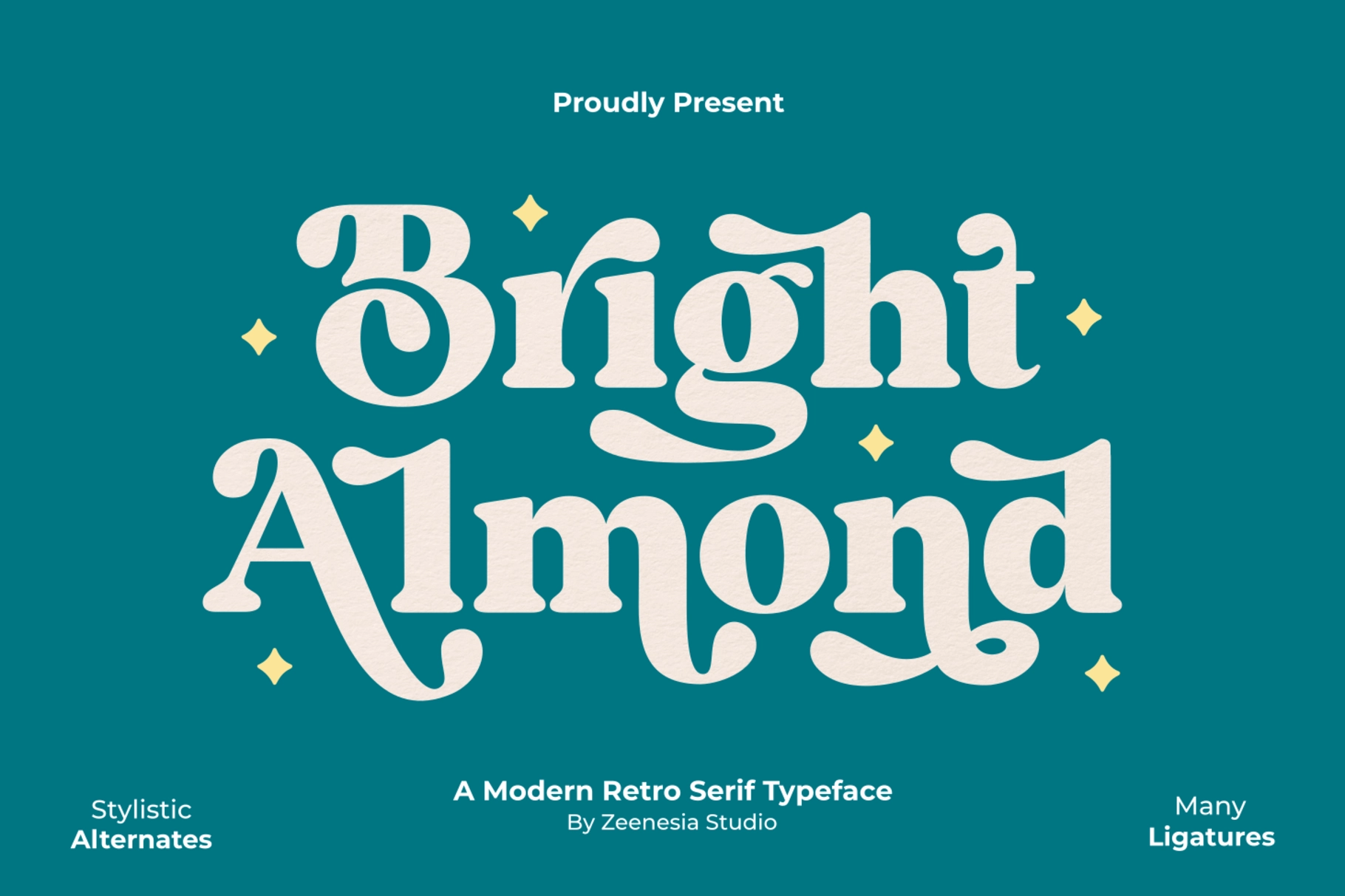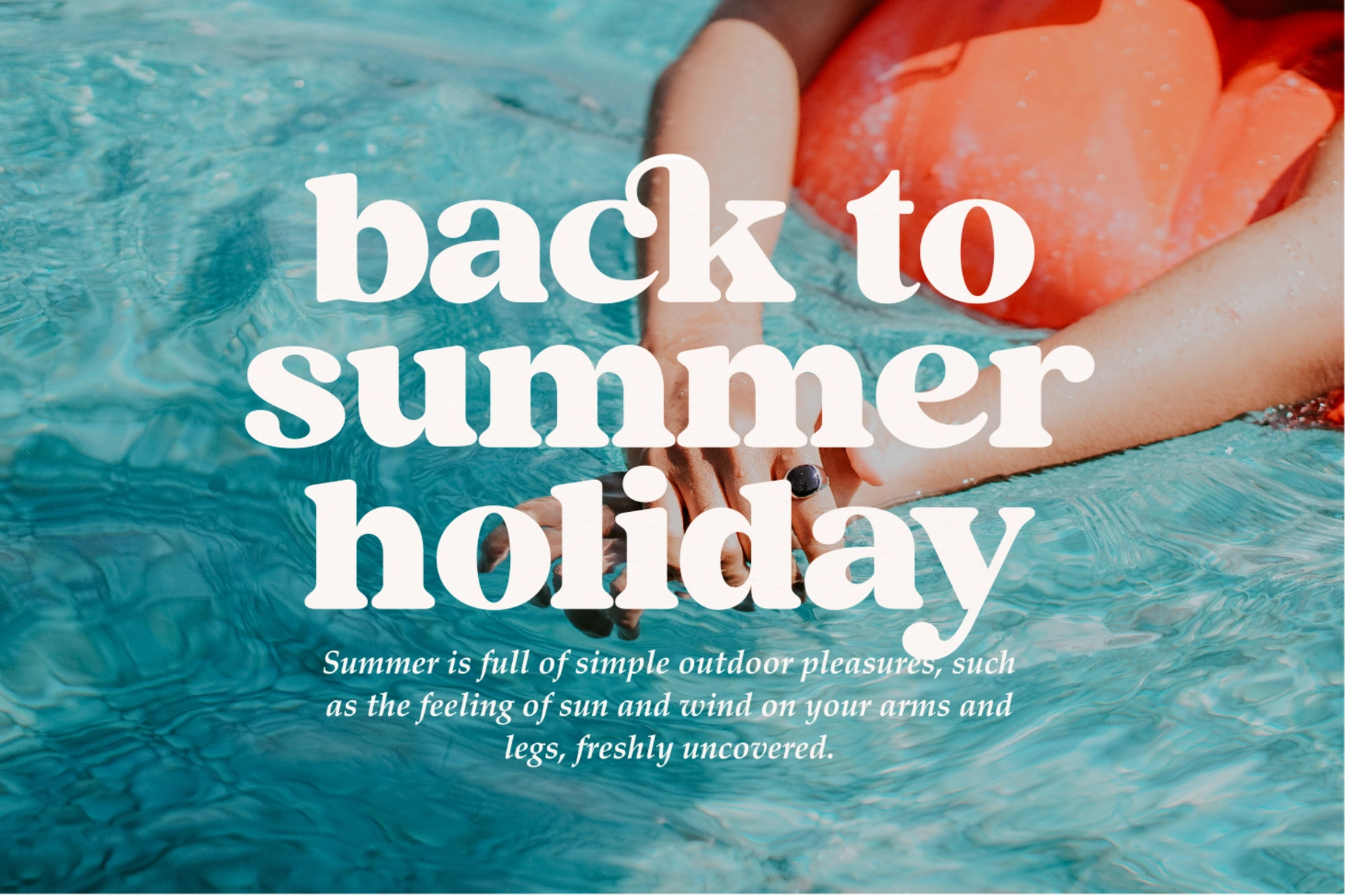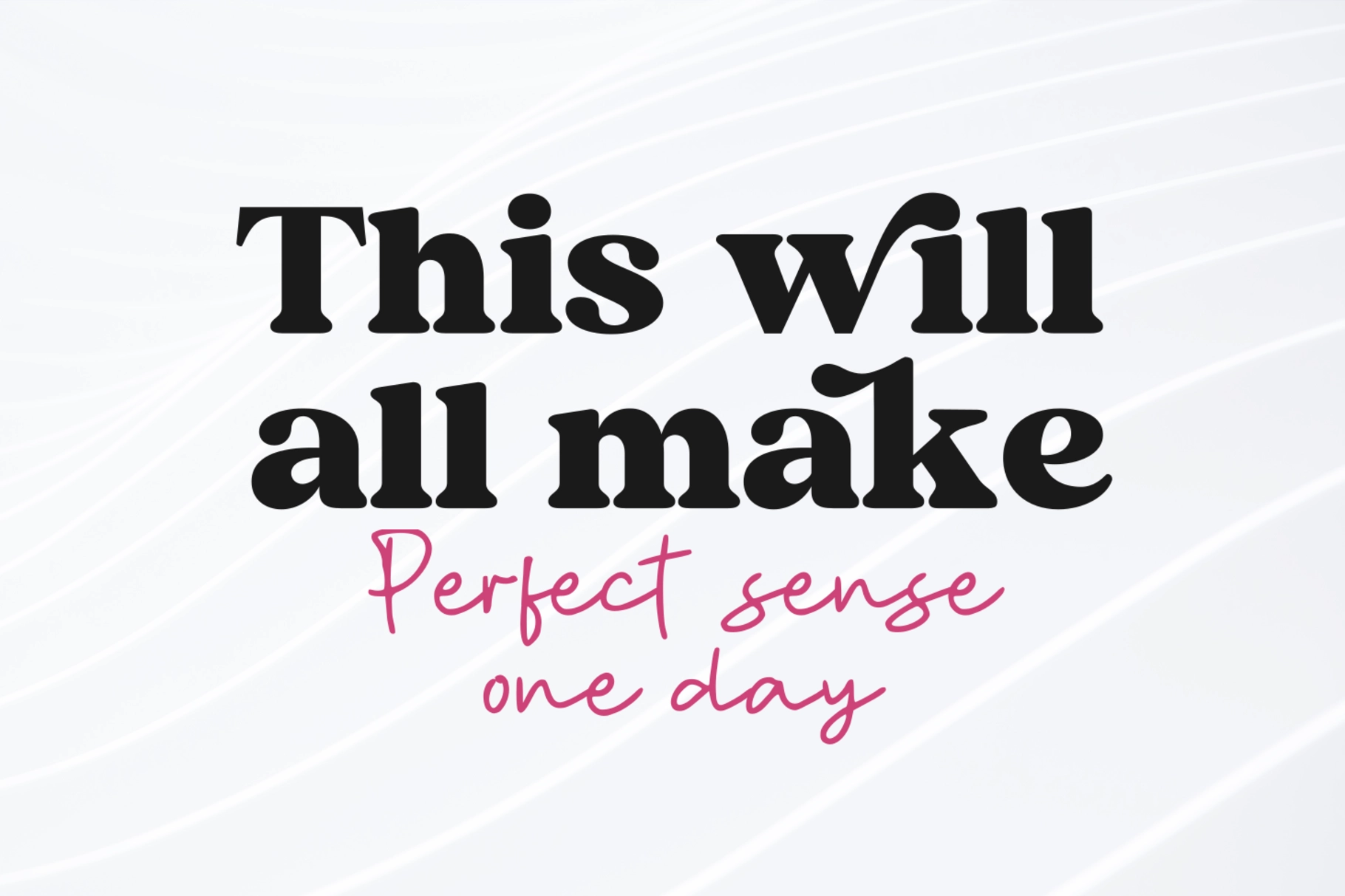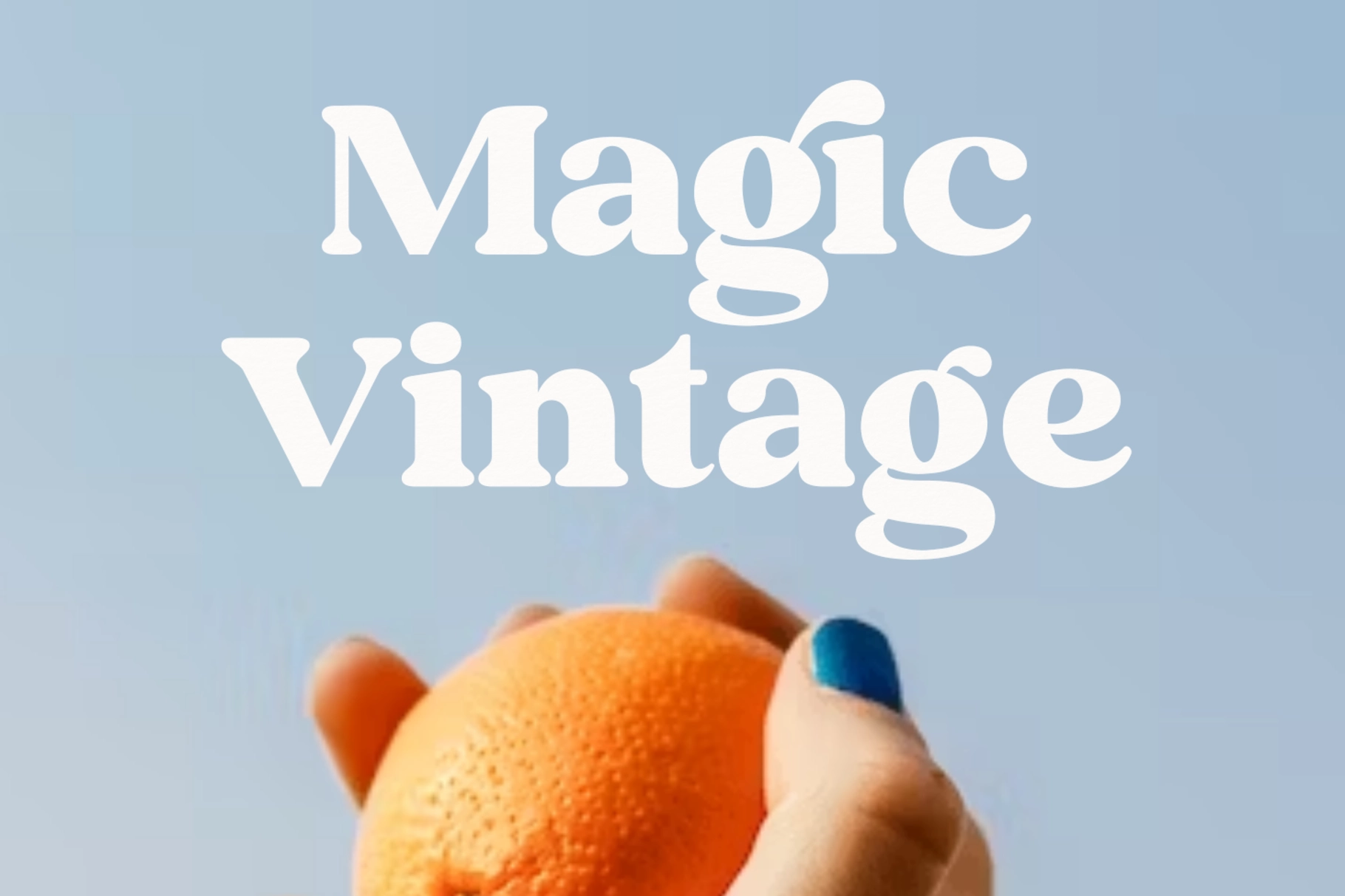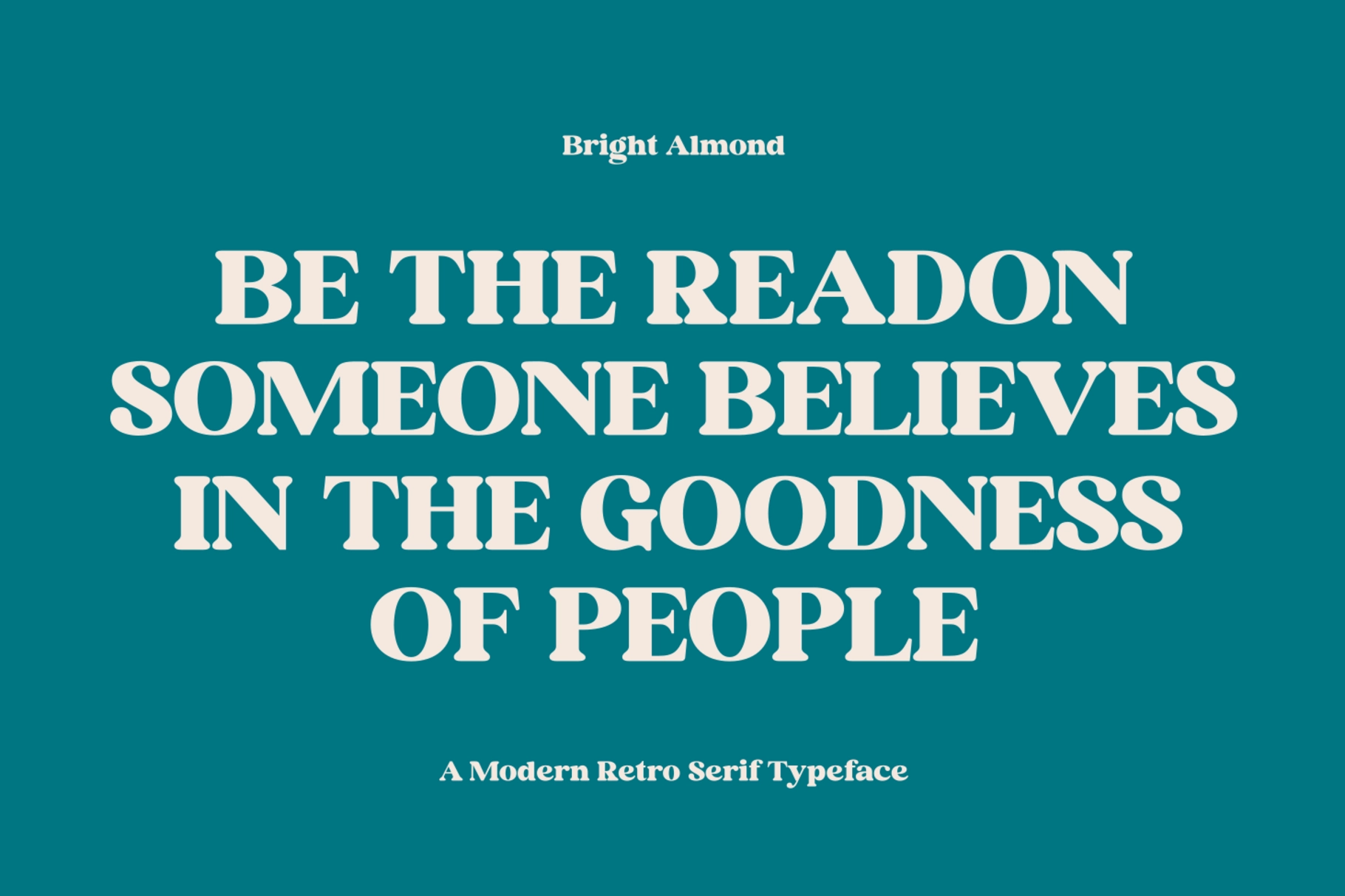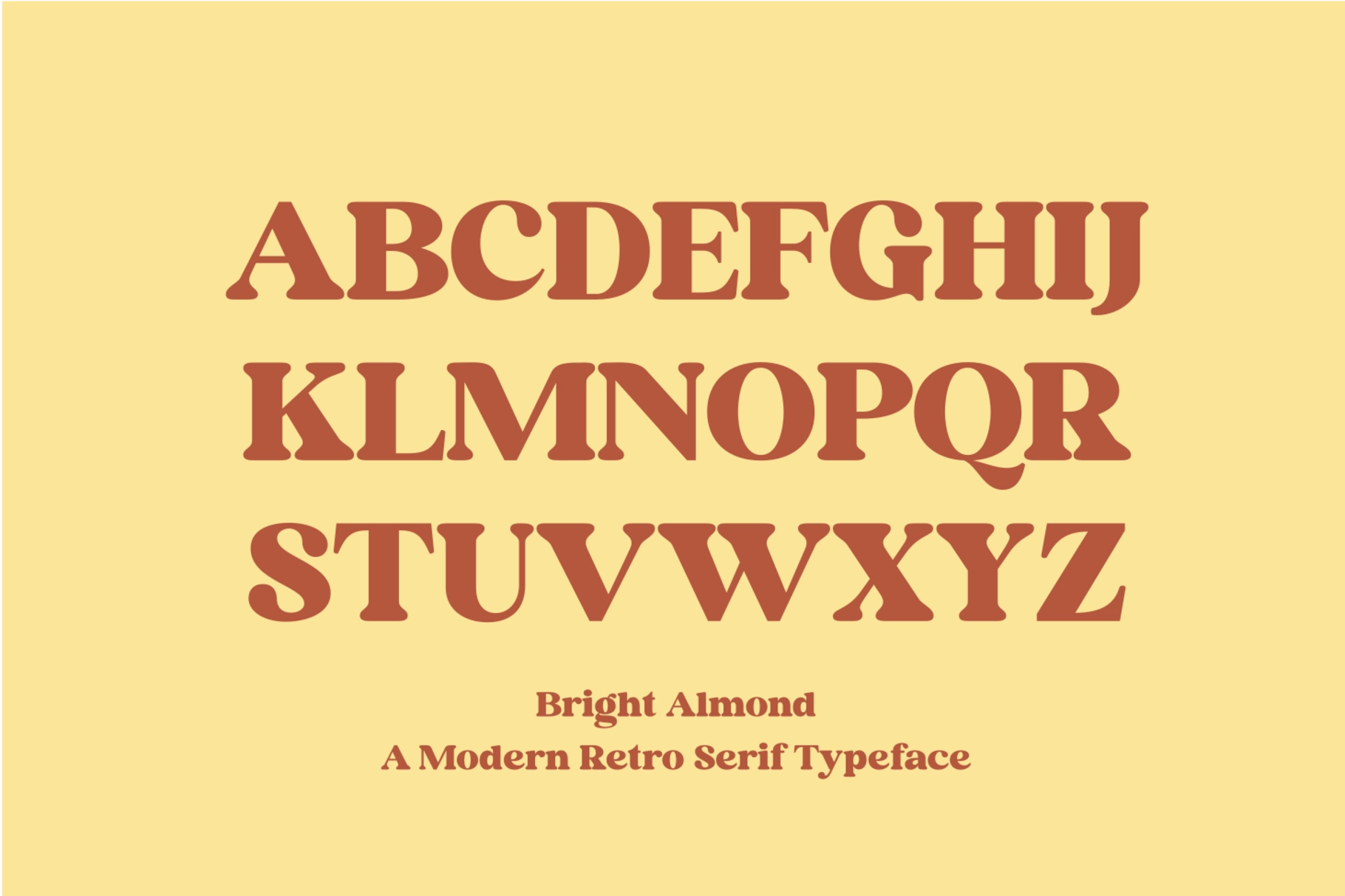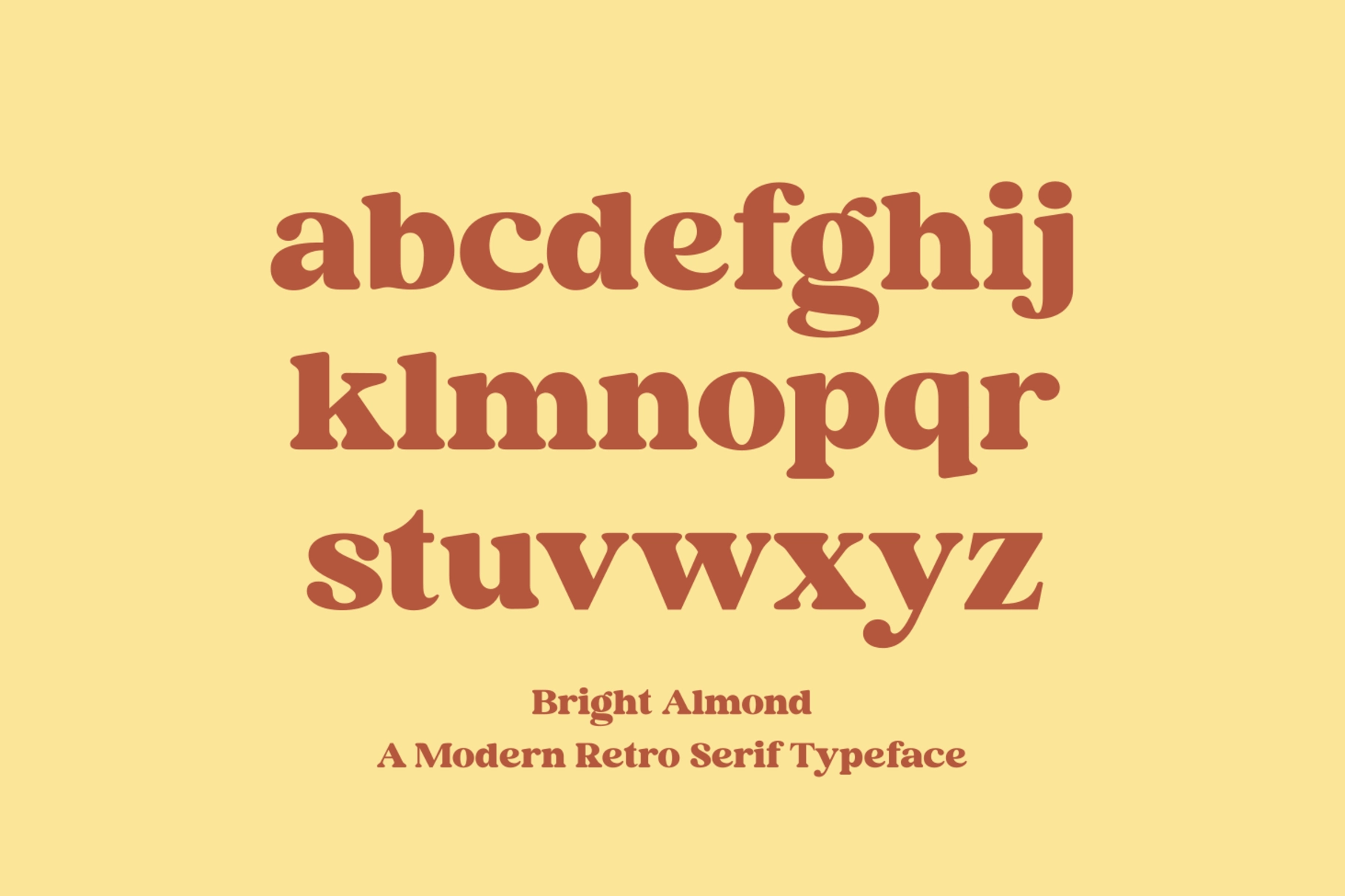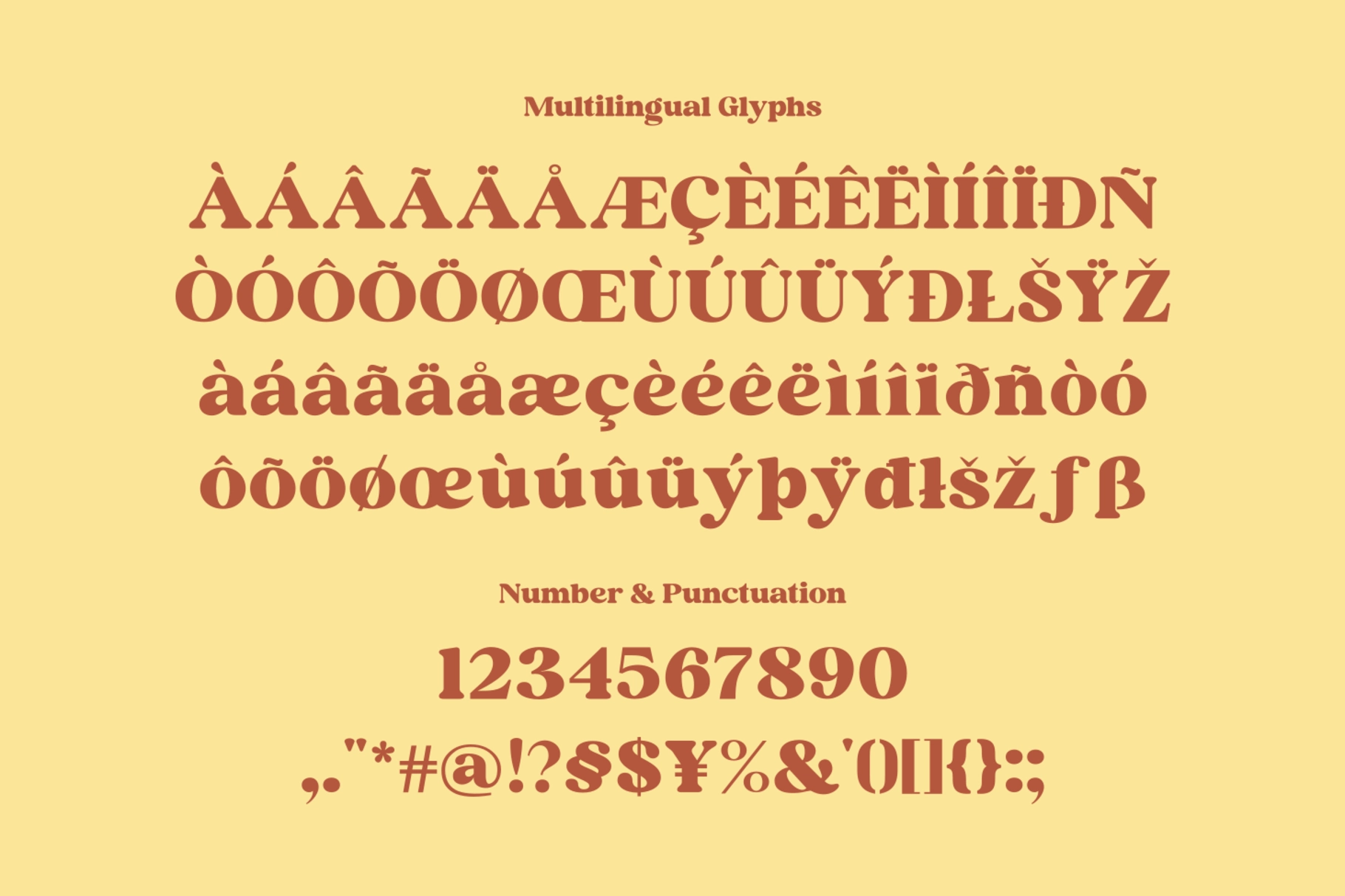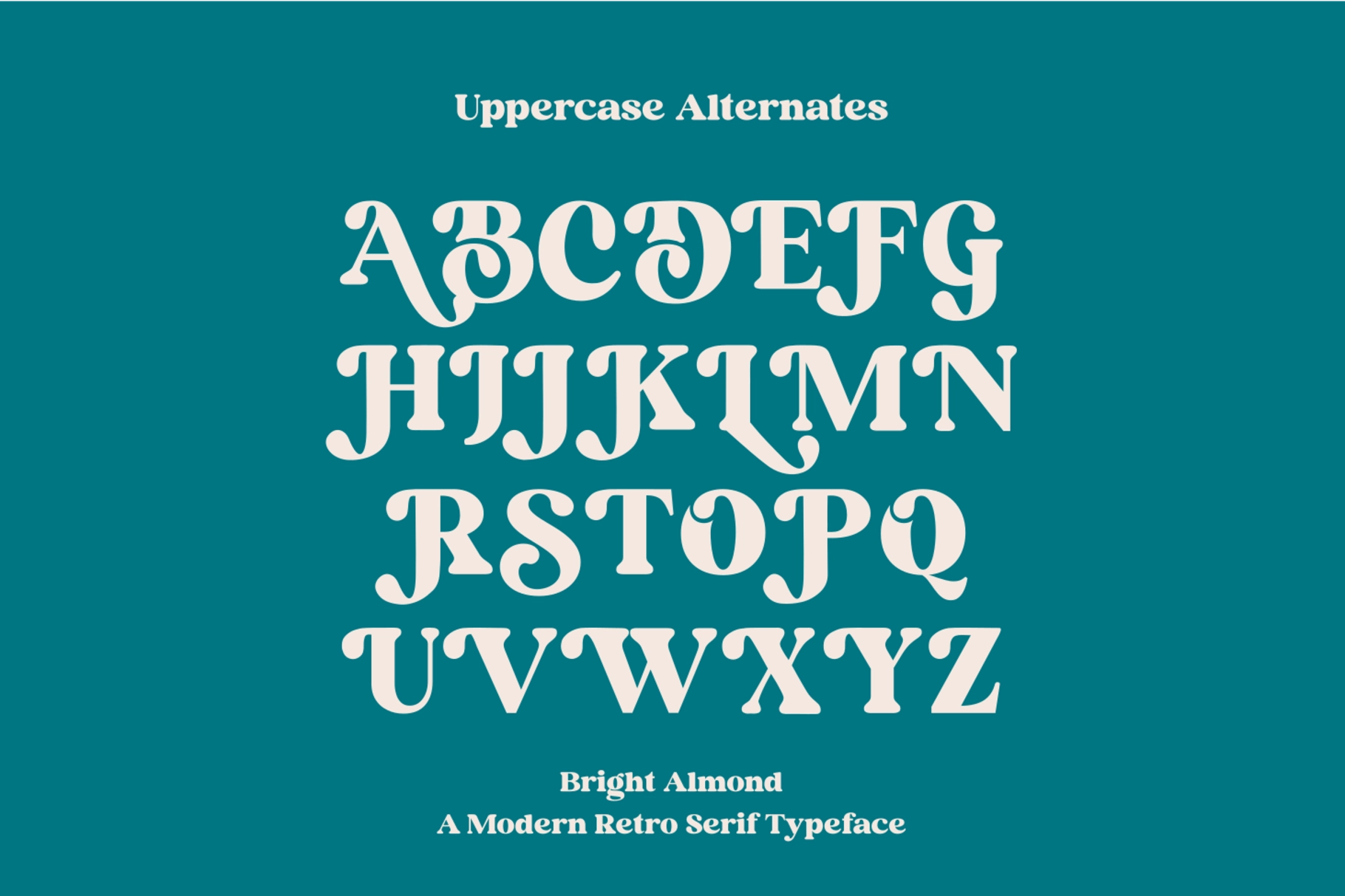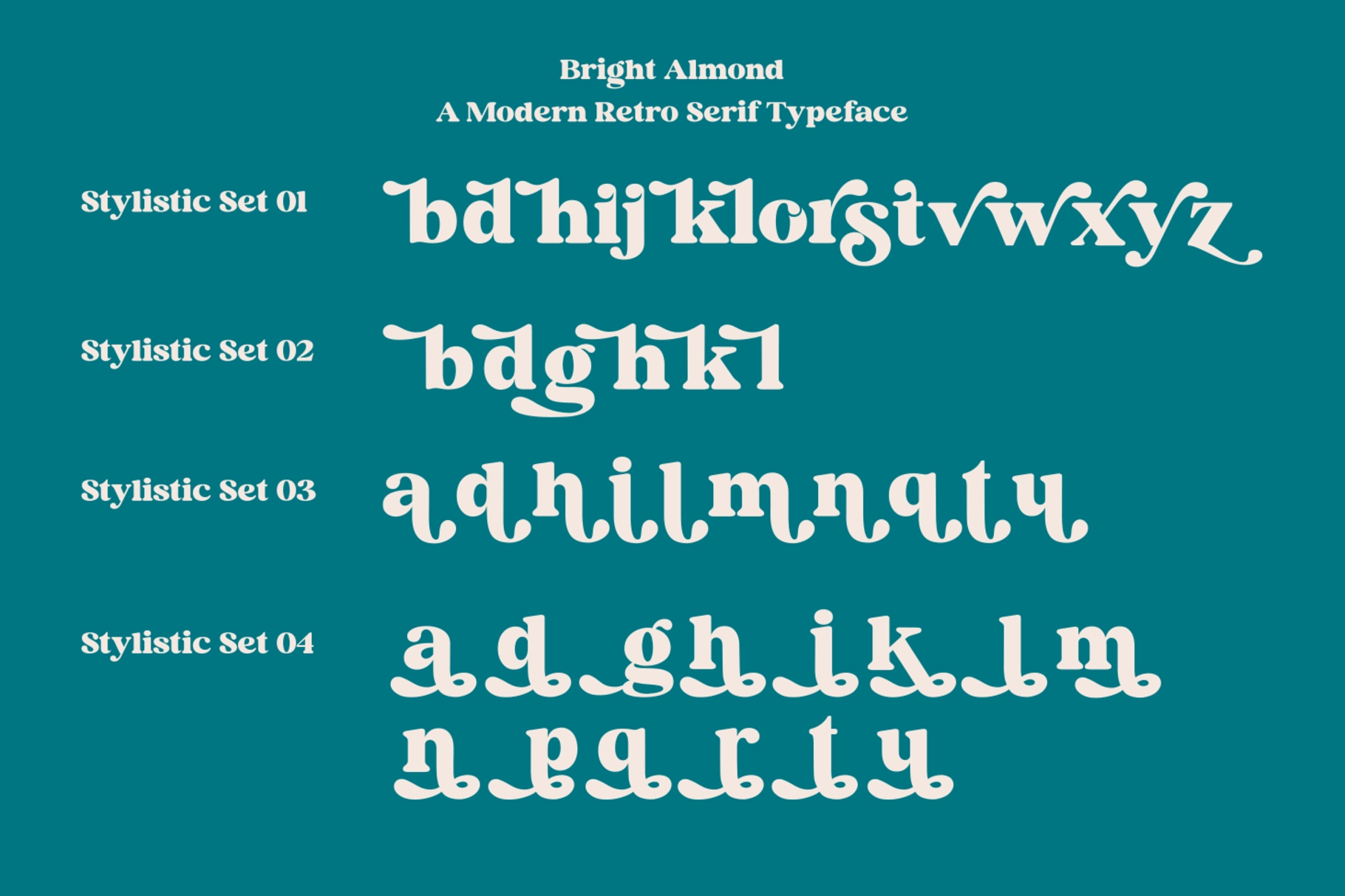
Bright Almond - Modern Retro Serif Font
Bright Almond
Bright Almond is a retro serif font with high contrast strokes, generously rounded terminals, and a thick, confident weight that reads somewhere between 1970s editorial type and groovy display lettering. The uppercase alternates add decorative swept serifs and cupped strokes; the four stylistic sets shift the lowercase into progressively more theatrical territory — from restrained period-appropriate shapes to full swash-heavy forms with looping descenders.
It works best at display sizes, where the contrast and curves get the space to register. Use it for logotypes, packaging labels, magazine titles, poster headlines, book covers, branding for cafés and beauty brands, social campaign graphics, and editorial pull quotes.
- uppercase & lowercase;
- numerals, punctuation & symbols;
- uppercase alternates;
- standard & discretionary ligatures;
- 4 stylistic sets;